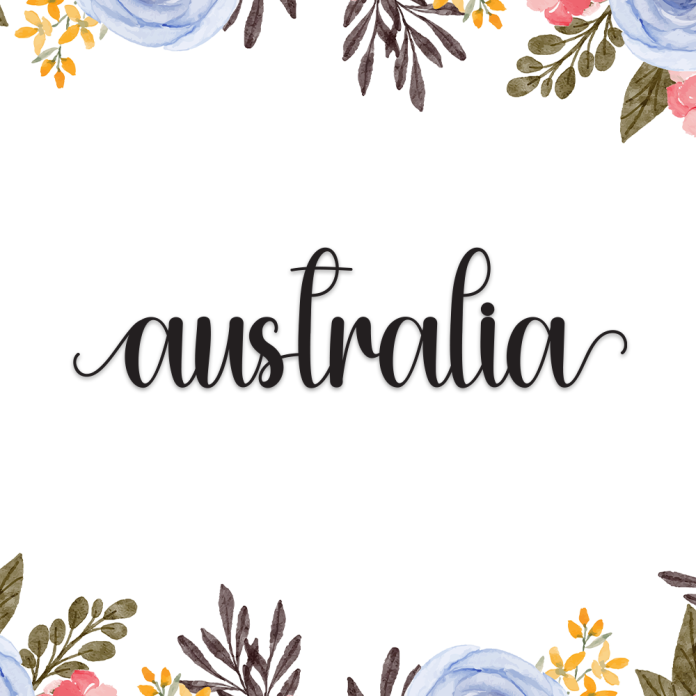
Australia is a smooth and breezy handwriting font that reflects the laid-back charm and effortless beauty of coastal living. With fluid strokes and a natural rhythm, this font feels personal, stylish, and gracefully modern.
Perfect for logos, wedding invitations, social media quotes, travel journals, and lifestyle branding, Australia adds a warm, handwritten touch to your design.
Elegant and casual handwritten style
Flowing, natural letterforms
Ideal for creative branding, quotes, stationery, and digital designs
Let your creativity wander with Australia, the handwriting font that’s as relaxed and beautiful as a sunset by the sea.